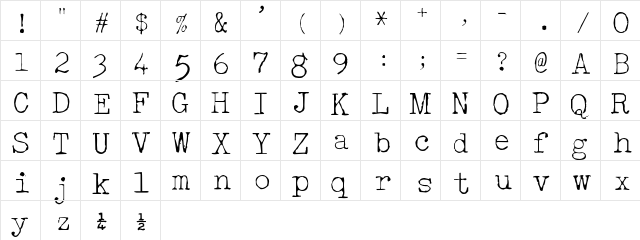
AcousticLight Regular
Design Context for AcousticLight Typeface
AcousticLight offers clean, dependable letterforms without strong stylistic allegiance, making it a practical choice for designers who need flexibility. Its slender proportions lend an understated elegance to any composition.
Pro Tip: Use AcousticLight in both headline and body roles to test its range before committing to a single application.